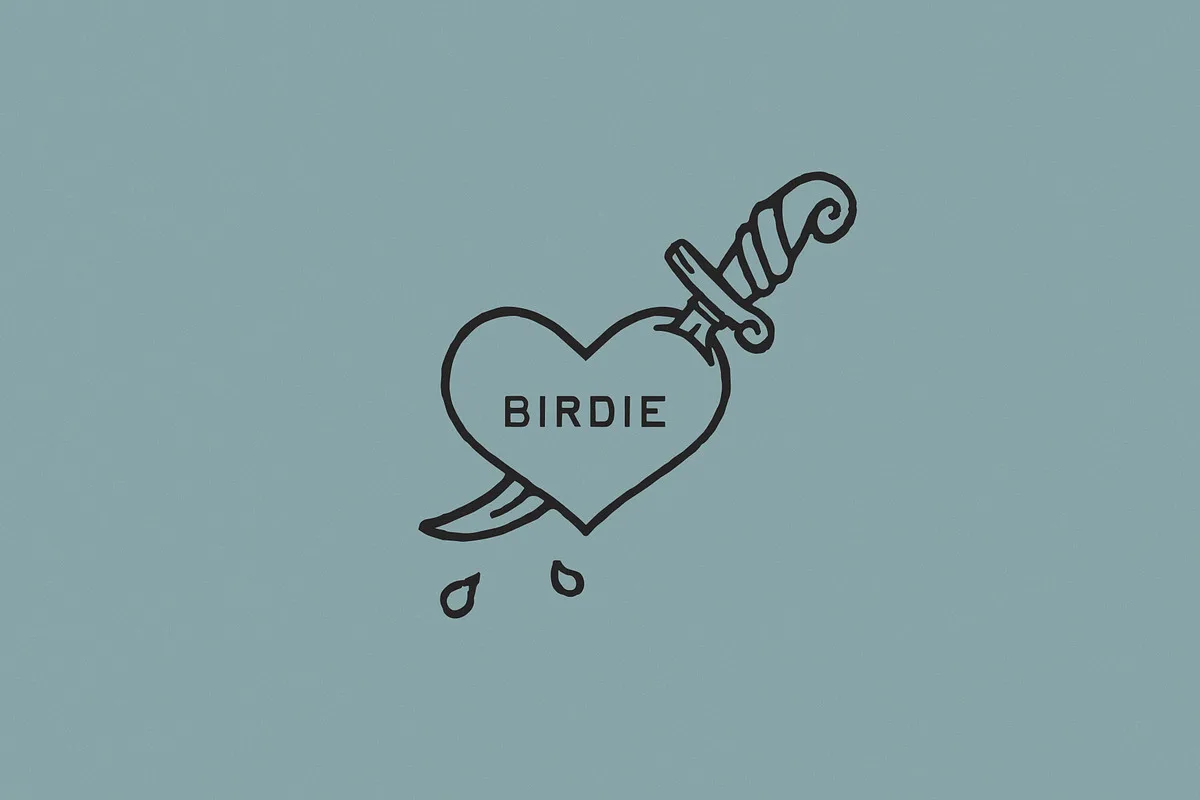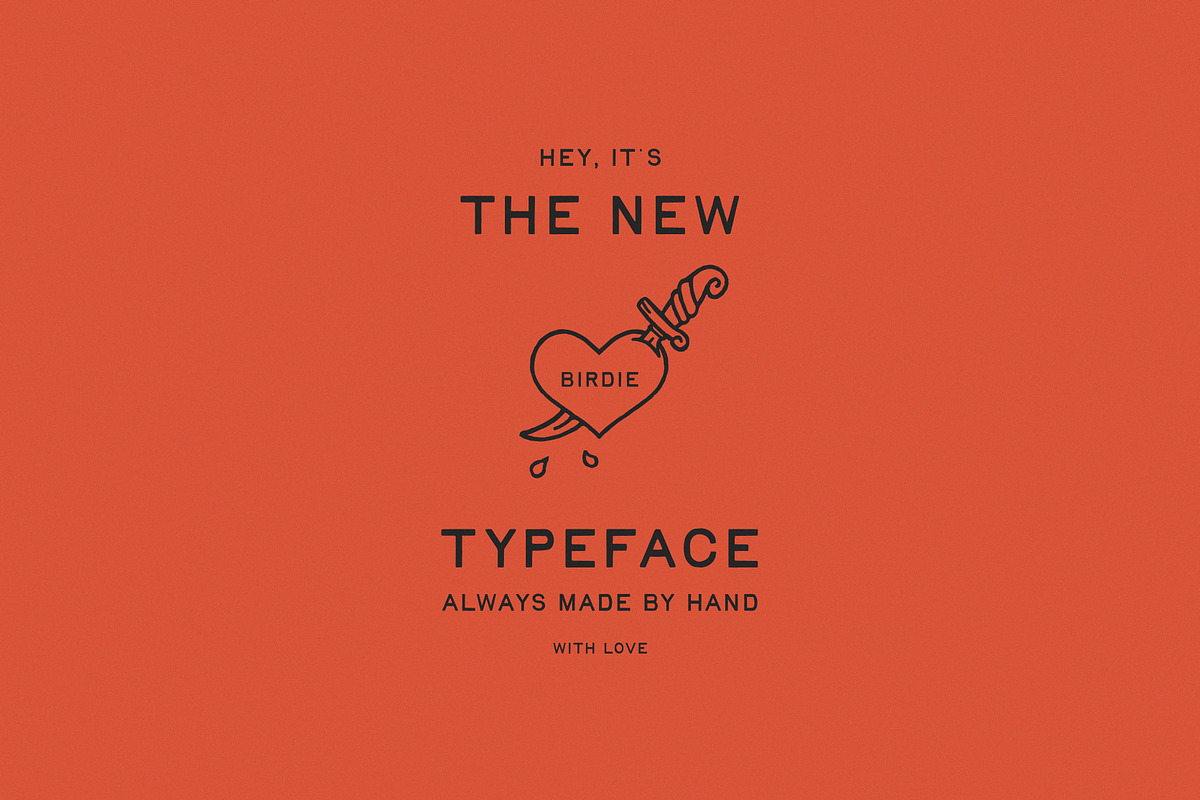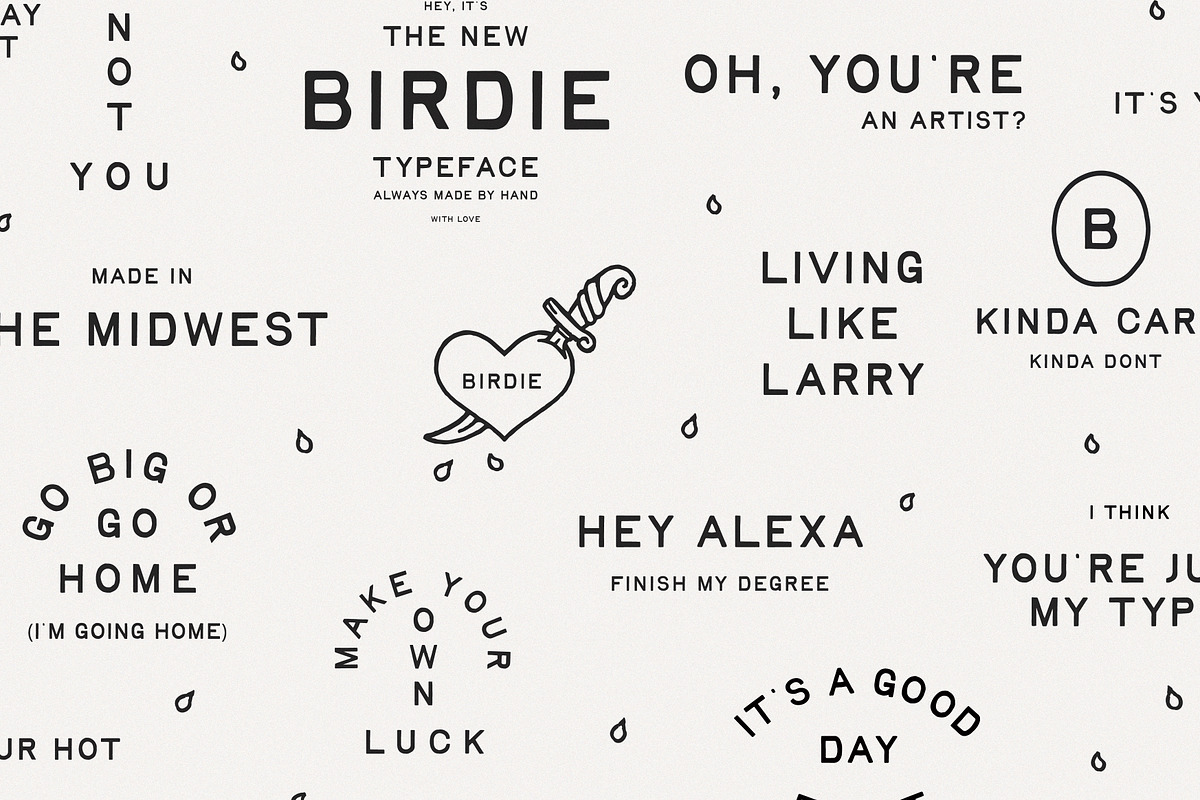
Birdie is a vintage print-inspired font that is versatile and perfect for a variety of uses. Contains all uppercase, numbers 0-9, and basic punctuation. It is perfectly suited for a wide variety of projects, such as signature, stationery, logo, wedding, typography quotes, magazine or book cover, website header, clothing, branding, packaging design, and more.
Birdie Vintage Print Font